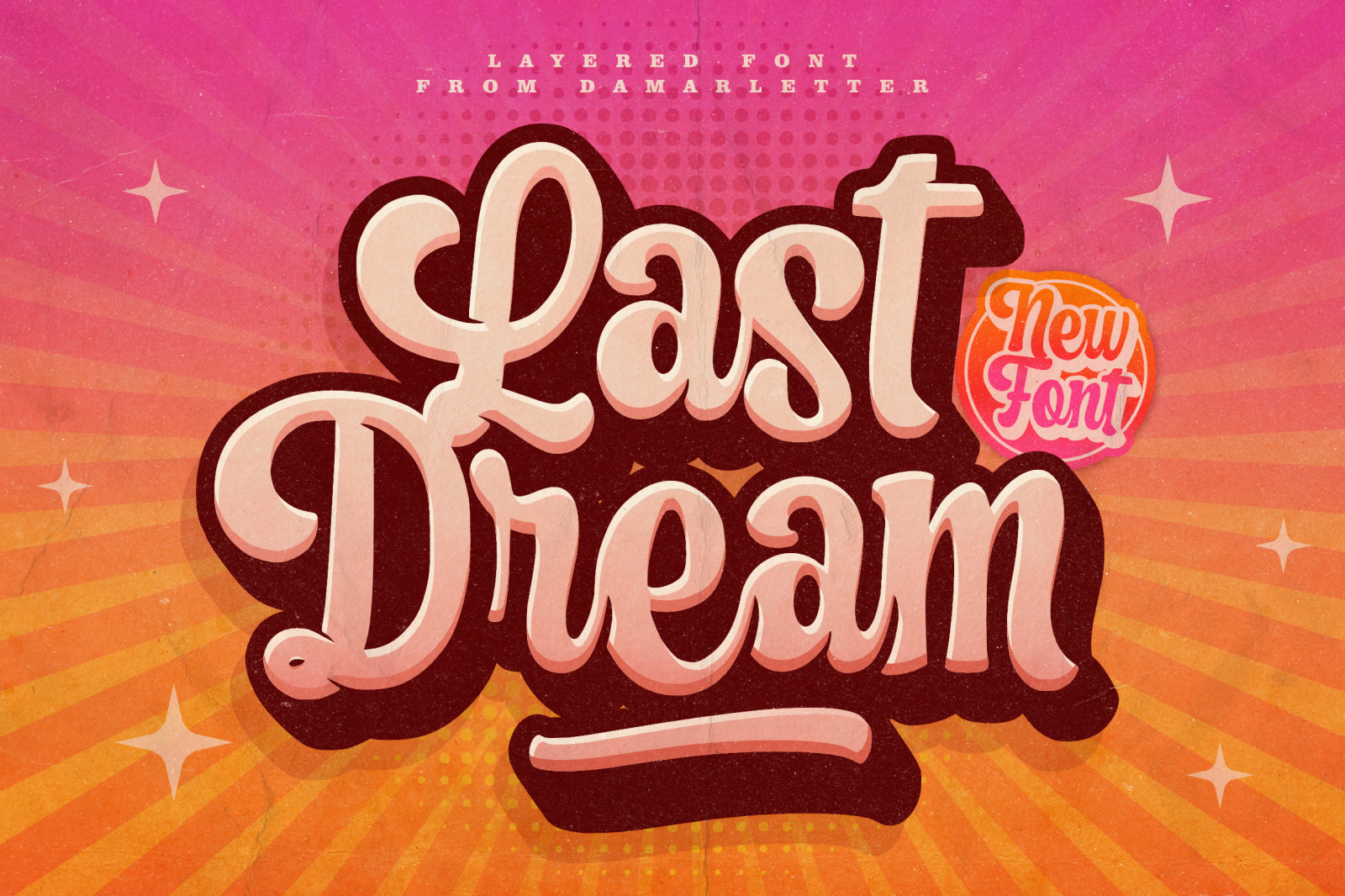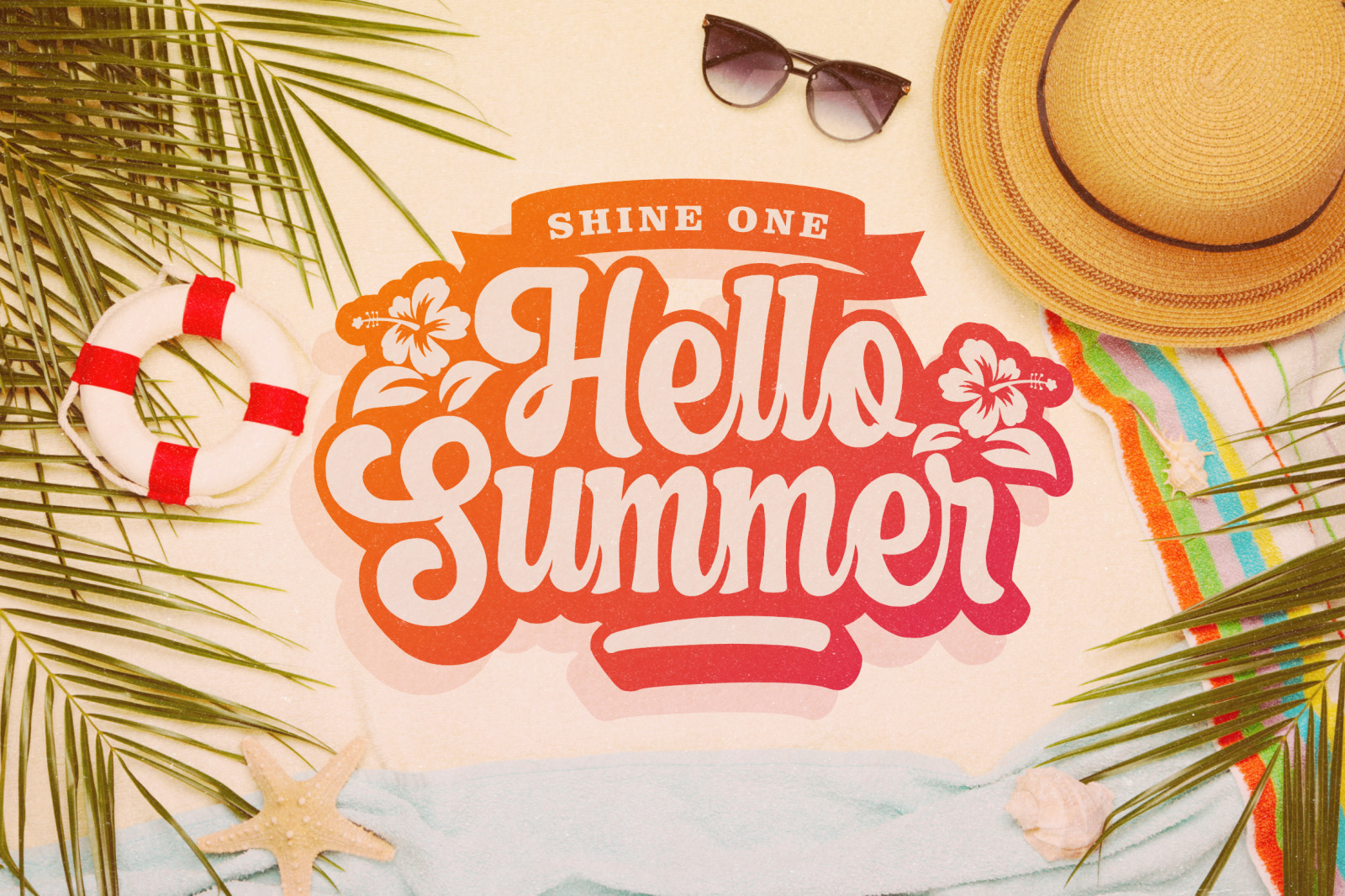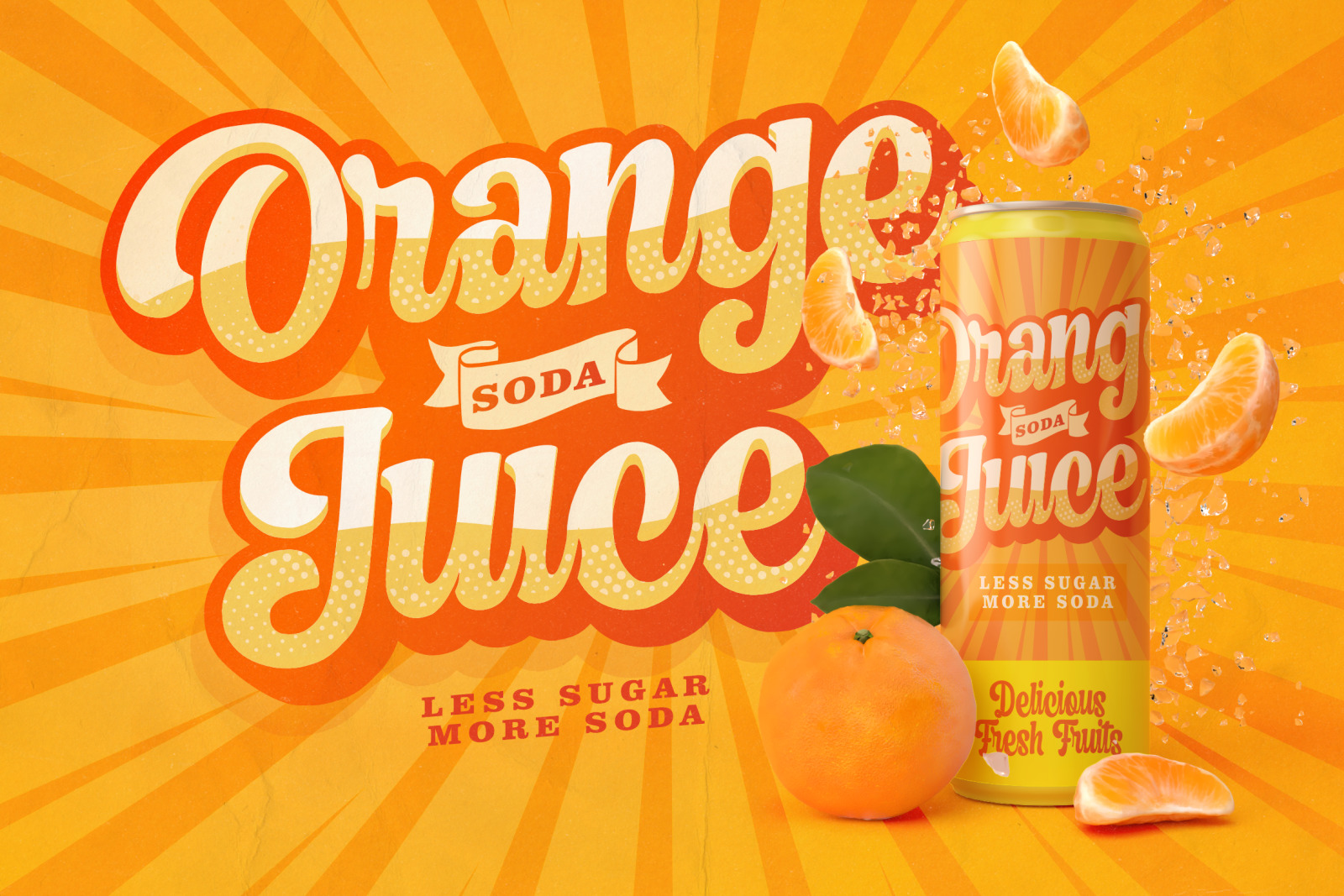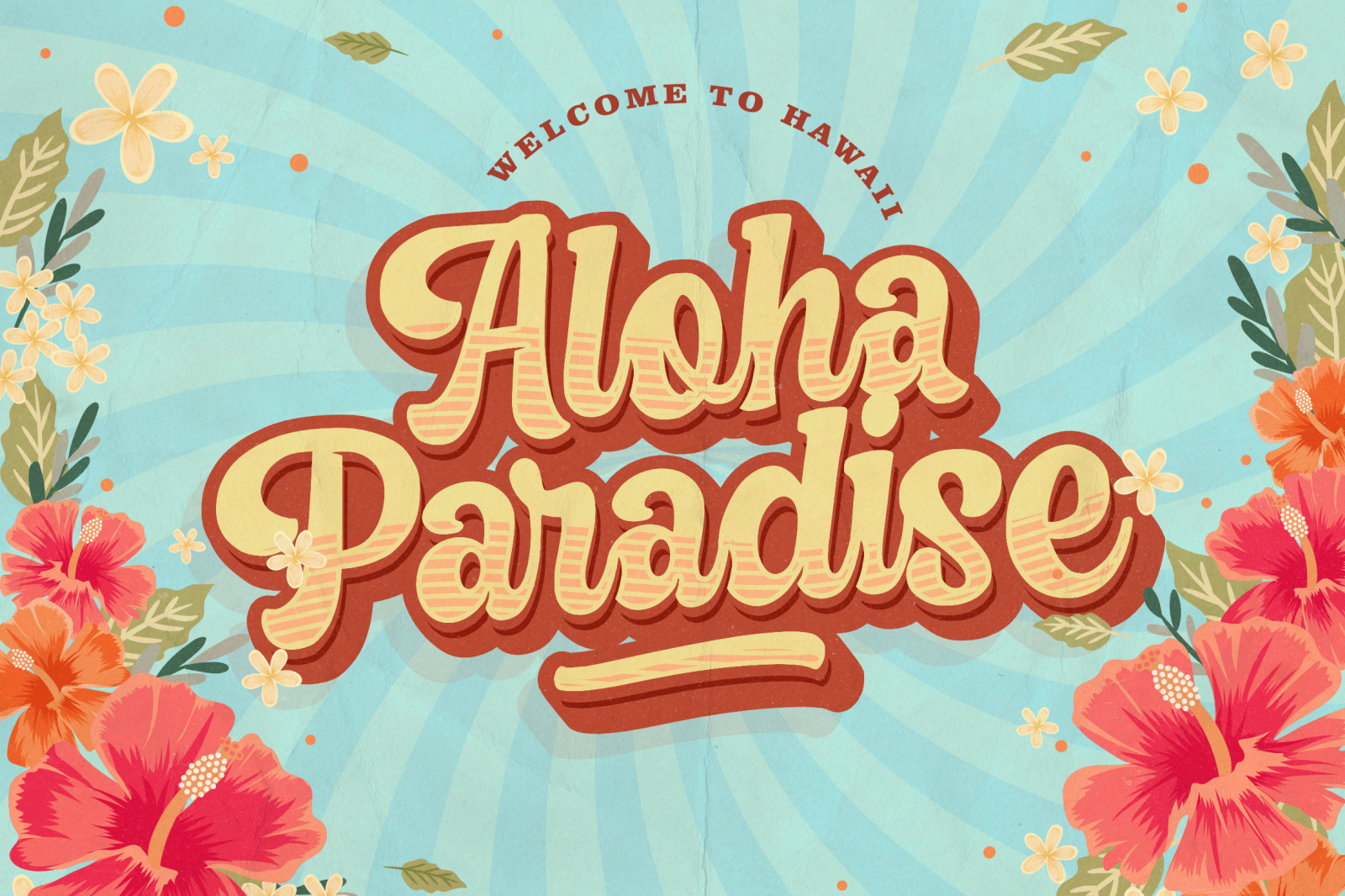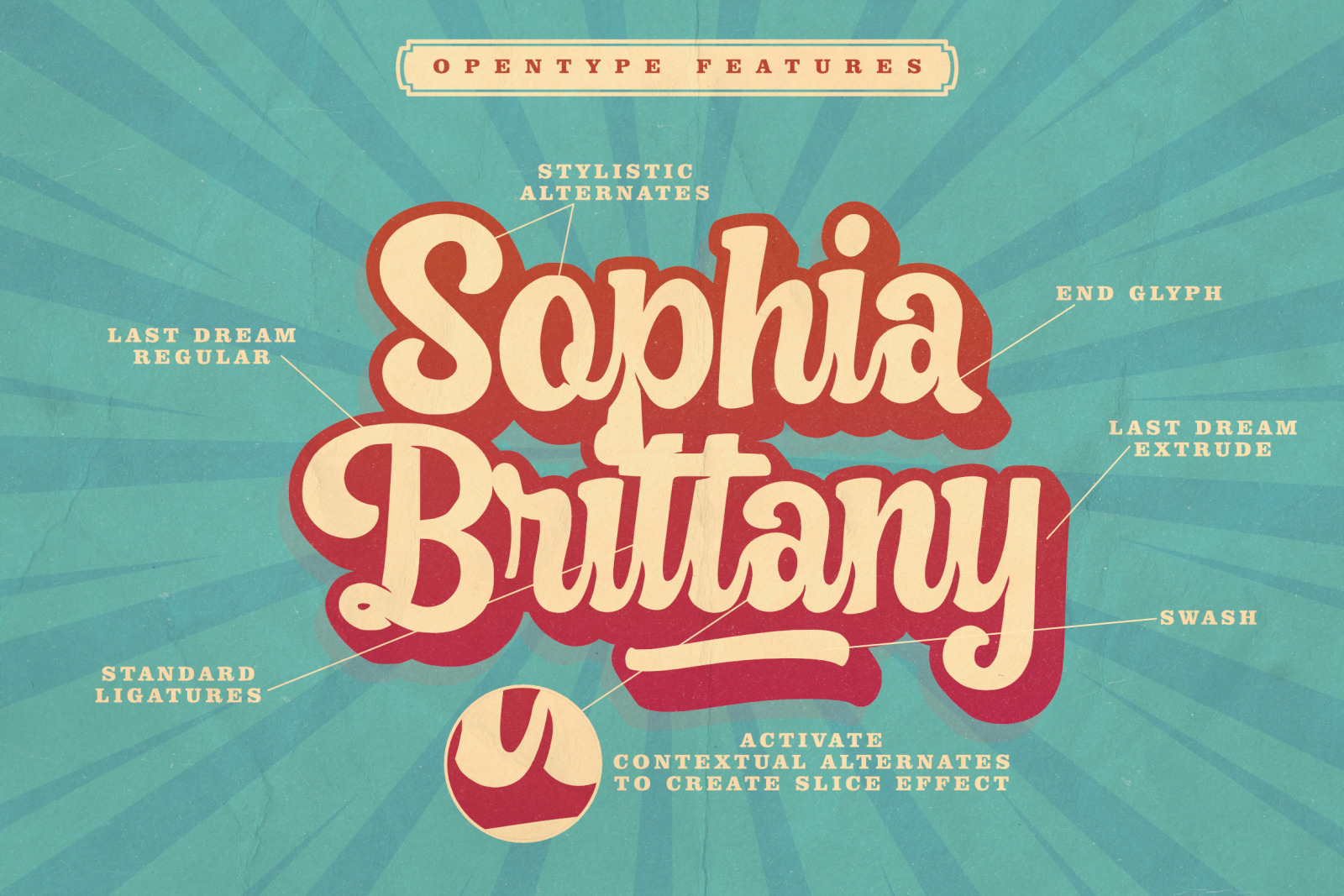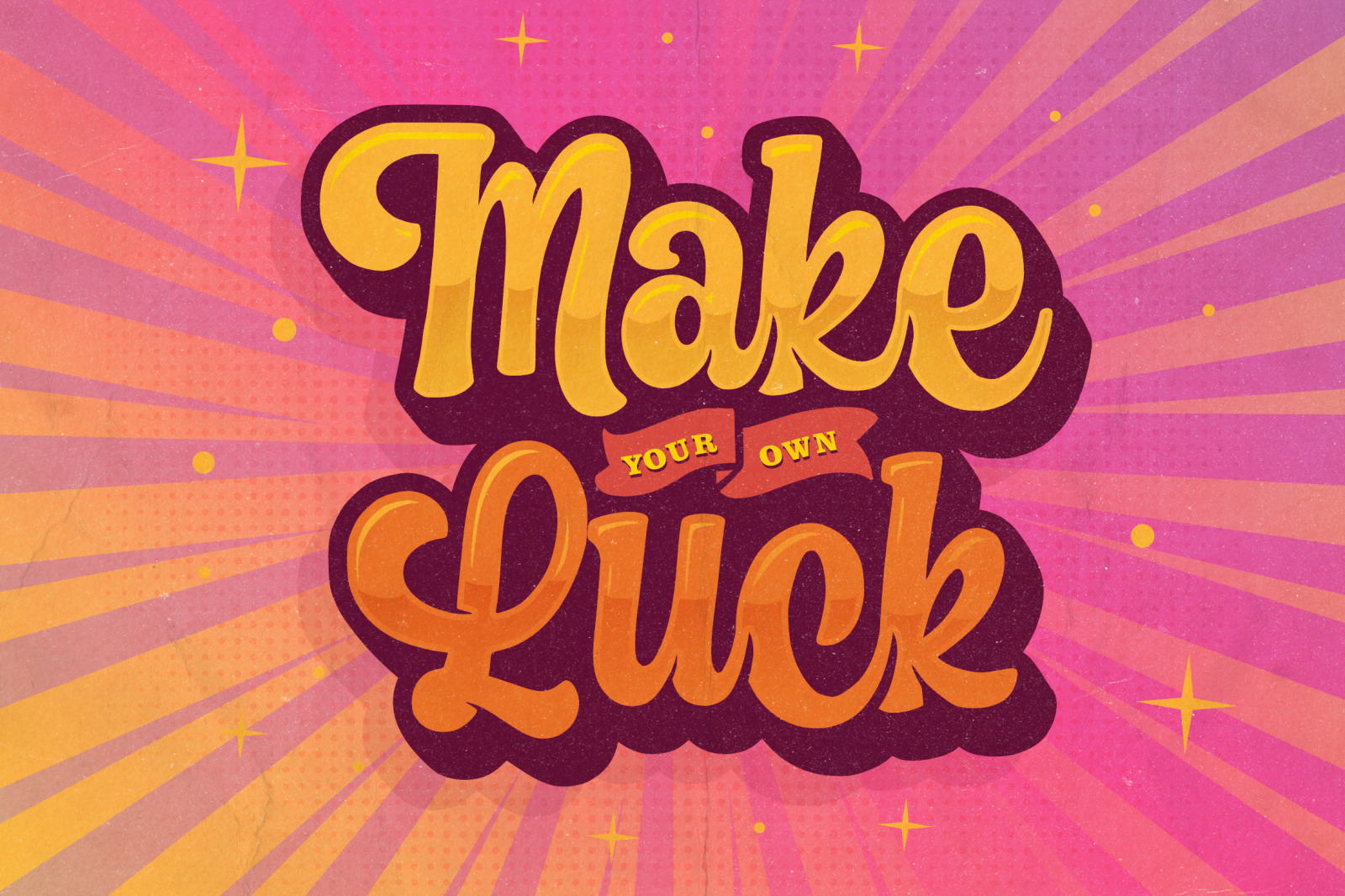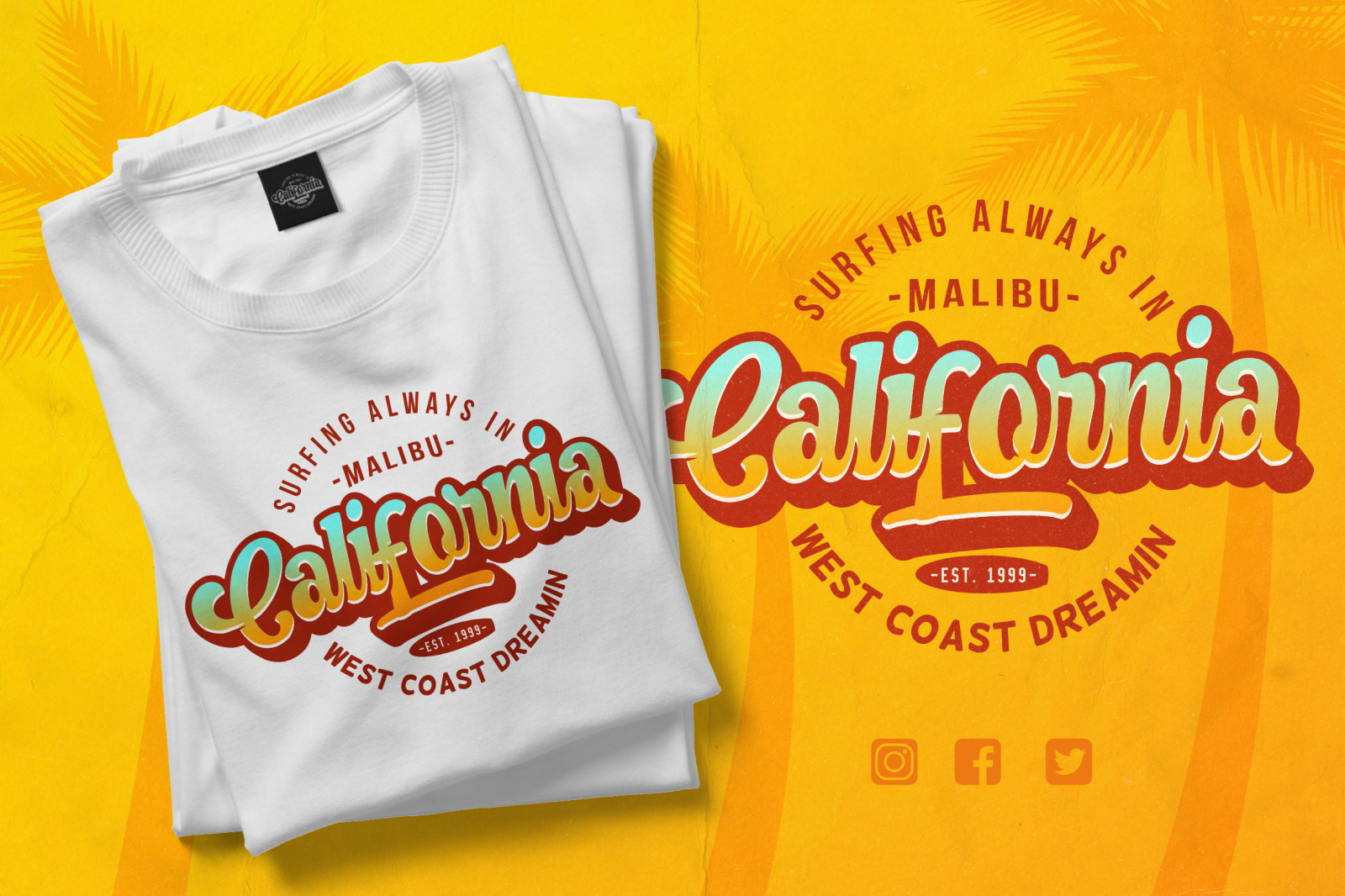
Last Dream – Layered Font
Last Dream is a captivating and versatile layered script font that brings a touch of dreamy elegance to your designs. With its graceful letterforms and unique layering options, this font allows you to craft intricate and visually stunning typography.
Inspired by the beauty of hand-lettering, Last Dream is perfect for creating a sense of nostalgia and sophistication in your projects. Its ornate and flowing strokes are ideal for vintage-themed designs, wedding invitations, and branding that aims to evoke a sense of timelessness and charm.
The layering capabilities of Last Dream enable you to experiment with colors, shadows, and effects, giving your text a three-dimensional and eye-catching quality. This makes it an excellent choice for crafting eye-catching headlines, titles, and logos that demand attention.
Embrace the enchanting allure of Last Dream layered script font and explore the endless possibilities for creating captivating, dreamlike designs that leave a lasting impression. This font is the perfect choice for designers who want to infuse their work with elegance and a touch of whimsical sophistication.